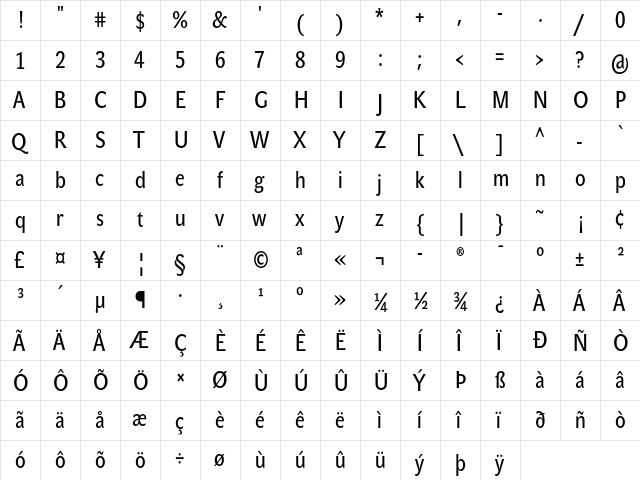
JohnSansCond Text Pro Regular
| Designer | Frantisek Storm |
Design Context for JohnSansCond Text Pro Typeface
JohnSansCond Text Pro is a composed and adaptable typeface that performs quietly and consistently across a wide range of design contexts. Its narrow stance lets it pack a punch even in space-constrained designs.